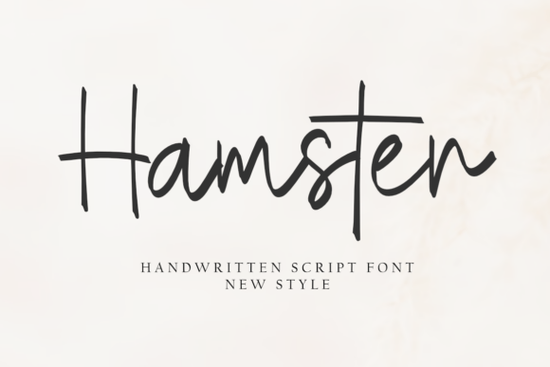
Hamster Font is a delightful handwritten typeface that brings a sense of warmth and playfulness to any design project. With its flowing cursive style, this font feels like a personal note from a friend, making it ideal for adding a touch of charm to your creative work. Whether you're designing for a wedding, crafting greeting cards, or working on branding materials, Hamster Font offers a soft and elegant look that stands out without being overwhelming.
If you're looking for a font that balances creativity with readability, Hamster Font is a great choice. Its natural flow makes it easy to use in both digital and print formats, and it works well with a variety of design styles. The font’s personality is perfect for projects that aim to convey a sense of joy, romance, or nostalgia. It's especially popular among designers who want to add a personal touch to their work without sacrificing professionalism.
When using Hamster Font, consider pairing it with simpler typefaces to create visual balance. For example, combining it with a sans-serif font can help highlight its expressive qualities without making the design feel cluttered. This font also works well in combination with other script fonts, allowing you to create layered text effects that add depth and interest to your work.
One of the strengths of Hamster Font is its versatility. It can be used in a wide range of applications, from social media posts and website headers to printed materials like business cards and packaging. Its friendly appearance makes it particularly effective for marketing campaigns targeting a younger or more casual audience. At the same time, its refined strokes ensure that it maintains a level of sophistication suitable for more formal projects.
Whether you're a designer, crafter, or small business owner, Hamster Font provides an accessible way to add personality to your work. Its easy-to-use format and appealing aesthetic make it a valuable addition to any design toolkit. As you experiment with different layouts and pairings, you'll likely discover new ways to incorporate this font into your creative projects.
Before finalizing your design, take a moment to test Hamster Font in different sizes and contexts. This will help you understand how it performs in various applications and ensure it meets your project’s requirements. Remember, the goal is to enhance your message, not overshadow it. With thoughtful use, Hamster Font can bring a unique and memorable quality to your work.
- Try pairing Hamster Font with a simple sans-serif for balance
- Test the font in different sizes and formats before finalizing your design
- Use it in both digital and print projects to maximize its versatility
- Consider the tone of your message when choosing which font to use